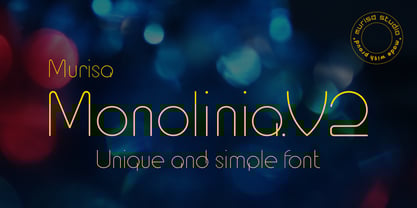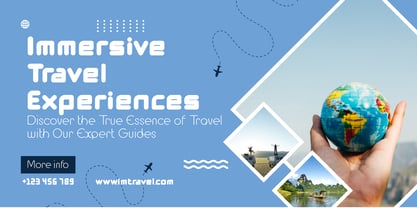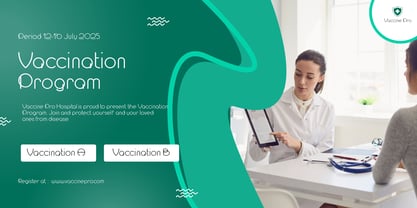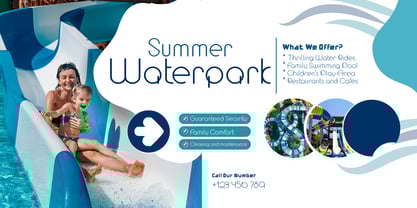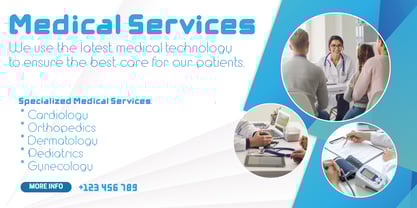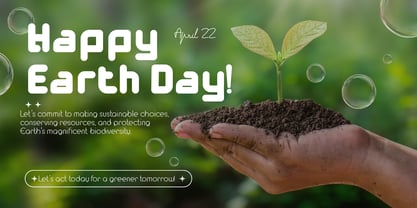
Murisa Monolinia
by Murisa Studio
The Murisa Monolinia Font Family was designed by Lili Sadili and published by Murisa Studio. Murisa Monolinia contains 4 styles and family package options. More about this family
Monolinia is a font that is unique and different from the others. Monolinia will make your designs and products more attractive. Try Monolinia and have an amazing experience. Your designs and products will look more elegant and authoritative.
Designers: Lili Sadili
Foundry: Murisa Studio